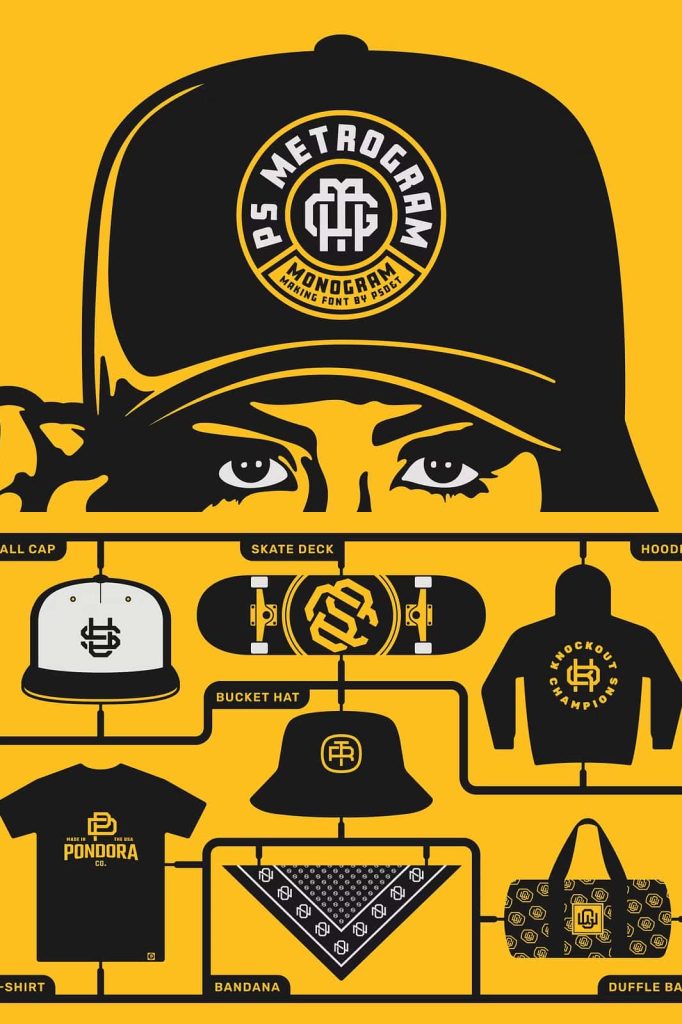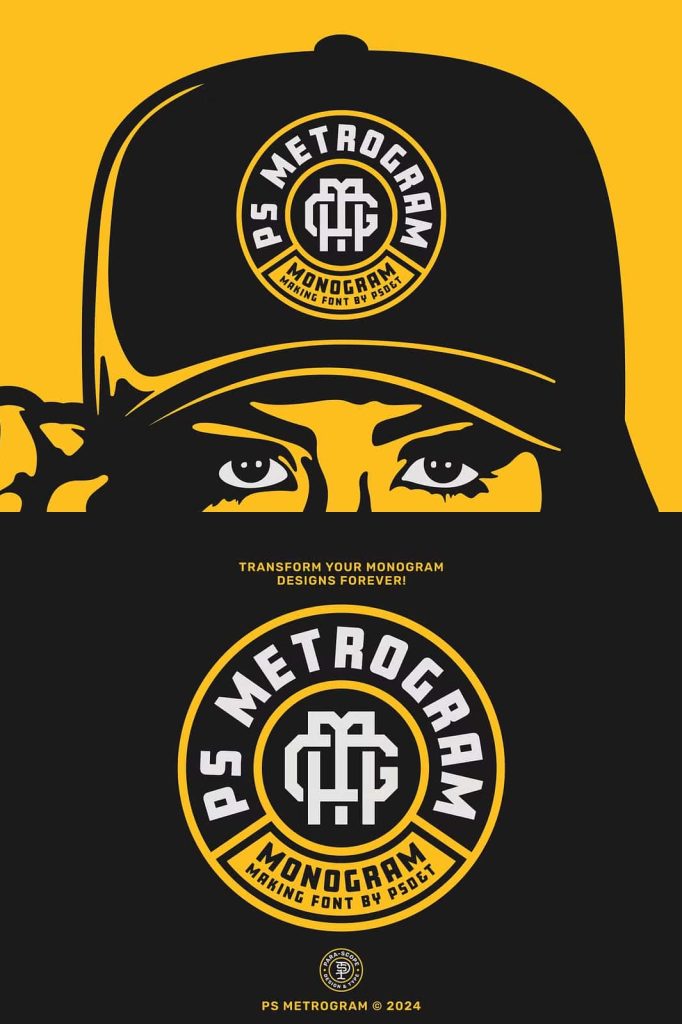
PS Metrogram: A Modern Monogram Font Fueled by Urban Culture
PS Metrogram is a powerful modern monogram font that blends contemporary typographic structure with the raw, energetic spirit of urban culture. Designed to elevate creative expression, this font delivers bold character, sharp presence, and unmistakable street-inspired confidence. PS Metrogram is not just a font; it is a creative tool built for designers who want to push visual boundaries and create typography that stands out in crowded visual spaces.
A Fusion of Modern Monograms and Urban Street Style
PS Metrogram captures the essence of modern monogram design while drawing strong inspiration from metropolitan environments and street culture. Its letterforms reflect structure, balance, and precision, while the overall aesthetic channels the energy of city life. This fusion creates a font that feels contemporary, bold, and deeply connected to modern visual culture.
The monogram-focused design allows designers to build strong typographic identities with minimal elements. Each character feels intentional and impactful, making PS Metrogram an excellent choice for logos, symbols, and branding systems that rely on simplicity and strength. The urban influence adds edge and attitude, ensuring designs feel relevant and forward-thinking.
Designed to Elevate Your Creative Game
PS Metrogram was created with creative professionals in mind. Graphic designers looking for a fresh typographic voice will find this font an effective solution for projects that demand originality and visual authority. Its clean yet expressive construction allows designers to communicate confidence, innovation, and modern style with ease.
Every keystroke delivers impact. PS Metrogram transforms simple letter combinations into bold visual statements, making it easy to create eye-catching designs without excessive decoration. This efficiency allows creatives to focus on concept and composition while relying on the font to carry strong visual weight.
Built for Streetwear Brands and Urban Creatives
PS Metrogram speaks directly to streetwear brands, urban labels, and creatives inspired by city culture. The font aligns perfectly with fashion-forward aesthetics, making it ideal for apparel branding, clothing tags, lookbooks, and promotional graphics. Its strong monogram style reinforces brand recognition and creates memorable visual identities.
Urban street fanatics and designers working in lifestyle branding will appreciate how PS Metrogram reflects authenticity and attitude. It captures the confidence of street culture while maintaining a polished, professional finish suitable for commercial use.
Versatile Applications Across Digital and Print Media
PS Metrogram adapts seamlessly across a wide range of creative applications. It performs exceptionally well in logo design, where monogram typography plays a key role in brand identity. The font also excels in posters, album covers, social media graphics, and digital campaigns that require strong visual focus.
In print applications, PS Metrogram maintains clarity and impact on packaging, labels, business cards, and promotional materials. Its modern structure ensures legibility, while the urban influence adds personality and edge. Designers can confidently apply the font across multiple platforms while maintaining consistency.
A Typeface for Designers Seeking Bold Identity
PS Metrogram empowers designers to create distinctive identities with minimal effort. Its monogram-centric approach supports branding systems that rely on strong initials and symbolic typography. This makes it especially valuable for personal brands, creative studios, and fashion labels that want a recognizable and modern typographic signature.
The font’s versatility allows it to function as both a primary display typeface and a supporting design element. Whether used prominently or subtly, PS Metrogram enhances the overall visual language of a project.
Why Choose PS Metrogram Modern Monogram Font
PS Metrogram stands out as a modern monogram font that successfully merges urban culture with contemporary typography. Its bold construction, street-inspired attitude, and design efficiency make it a powerful asset for graphic designers, streetwear brands, and monogram enthusiasts. By choosing PS Metrogram, you unlock a creative tool that transforms ideas into confident visual statements and brings modern urban energy to every design.